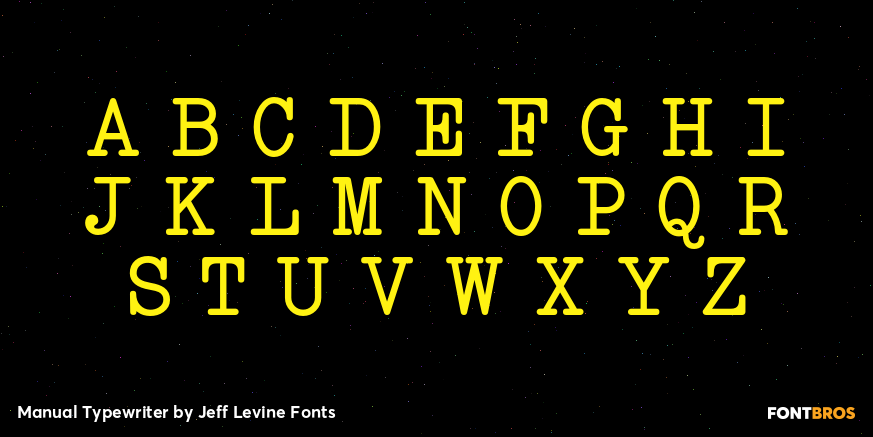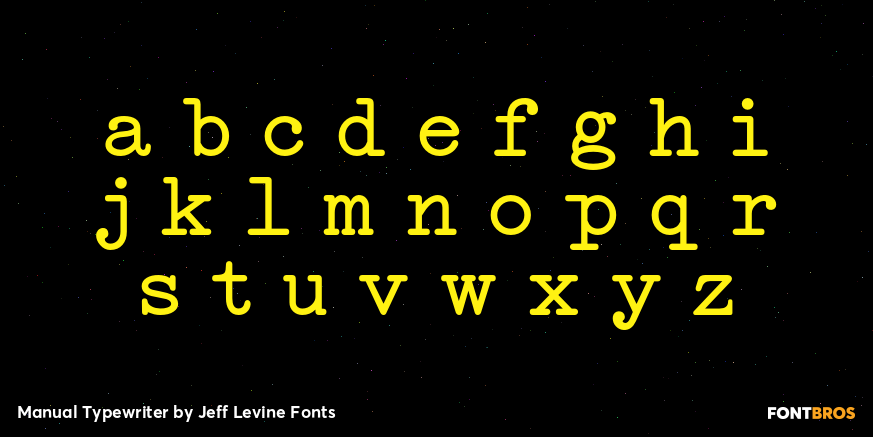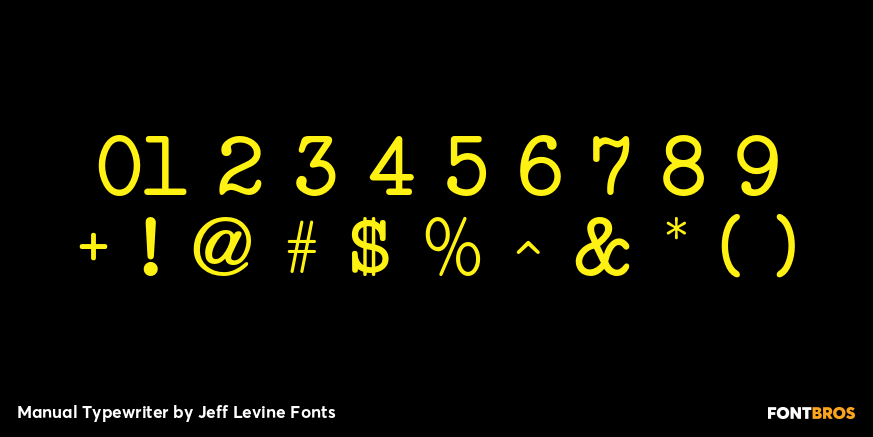
Manual Typewriter
Buy NowManual Typewriter JNL was modeled from an example of the 1933 design originally created by Morris Fuller Benton, and is available in both regular and oblique versions.